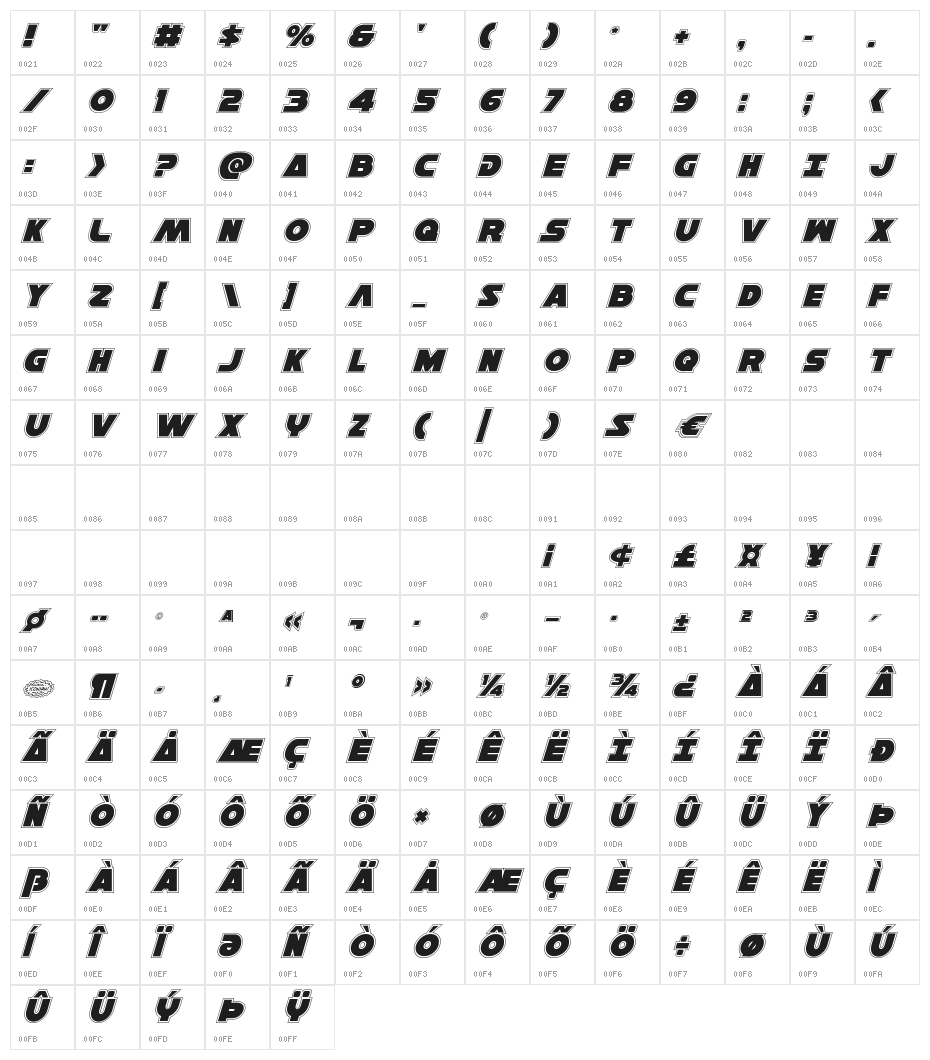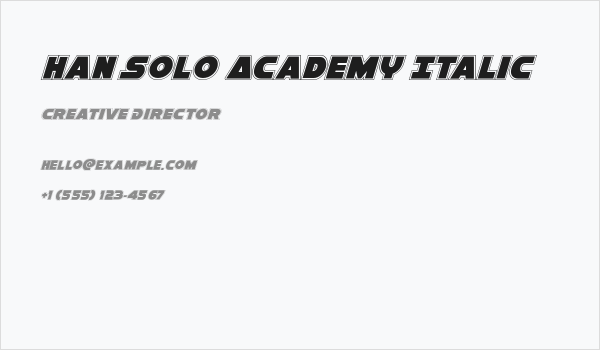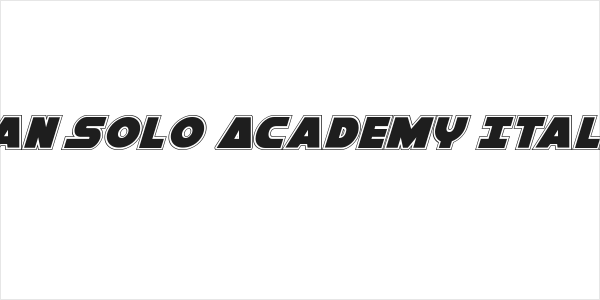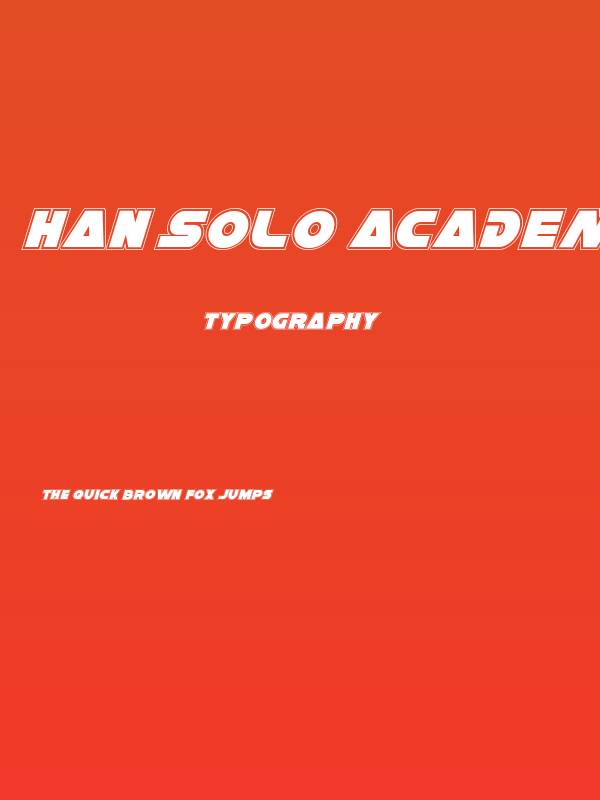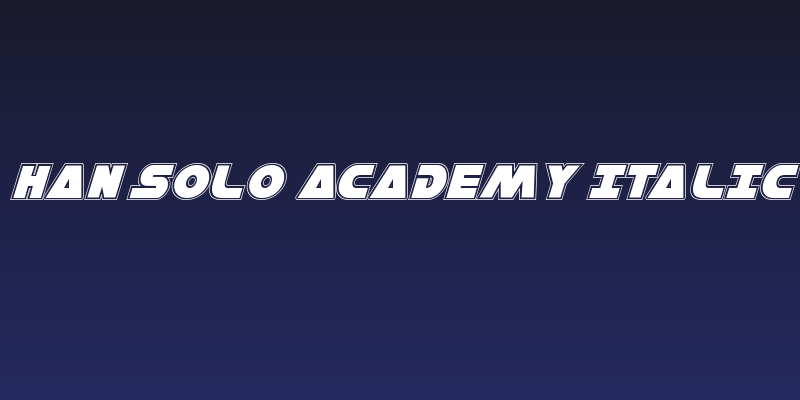
Han Solo Academy Italic Font
Han Solo Academy Italic Description
This font features a bold, futuristic design with a distinct italic slant, giving it a dynamic and energetic appearance. The characters are outlined, adding depth and a three-dimensional effect. The uppercase letters are uniform in height, while the numbers and special characters maintain the same bold style. The font's geometric shapes and sharp angles contribute to its modern and sleek aesthetic, making it stand out in any design project. Its boldness and unique style make it ideal for attention-grabbing headlines and titles.
| Proposed Projects | Ideal for sci-fi themed designs, movie posters, video game titles, and branding for tech companies. |